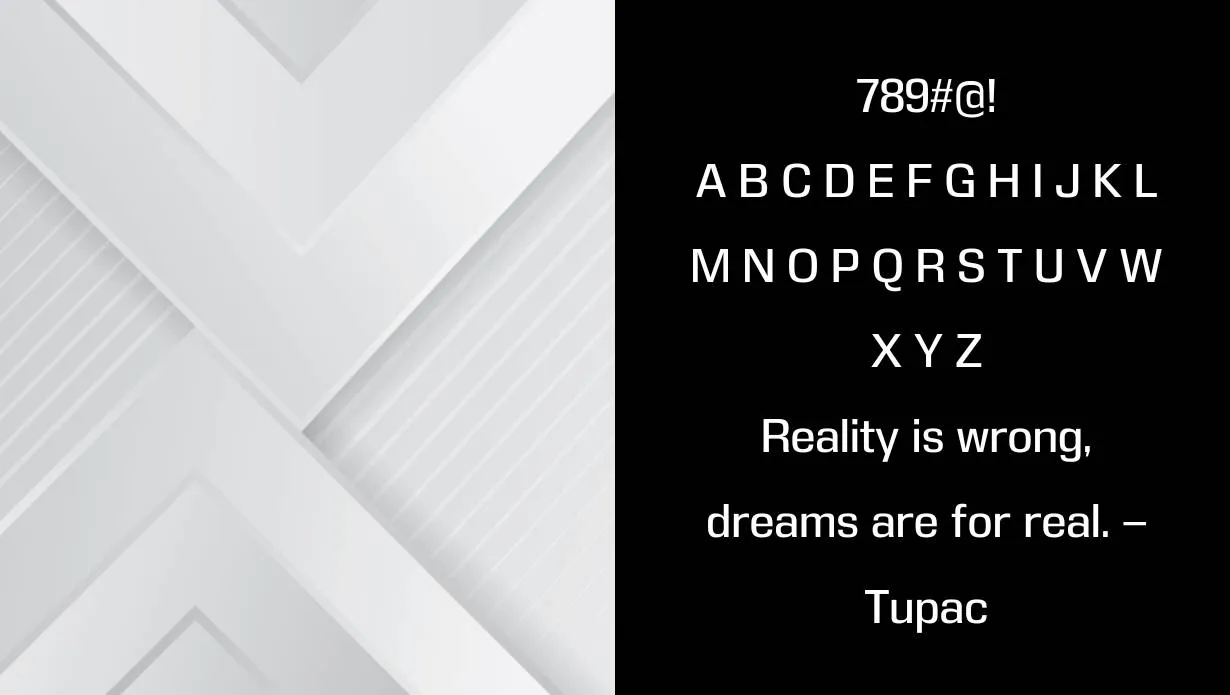
DDT Font is a very clean, simple, and charming typeface that is commonly used for logo designs. It was created by Doyald Young and is available for both personal and commercial use.
This Font is perfect for creating elegant, vintage-inspired designs. The font includes a full set of upper and lowercase letters, as well as numbers and punctuation. The Font style is available in 12 unique styles and weights.
DDT Font Family
| Name | DDT Font |
| Designer | Doyald Young |
| Style | Sans-serif |